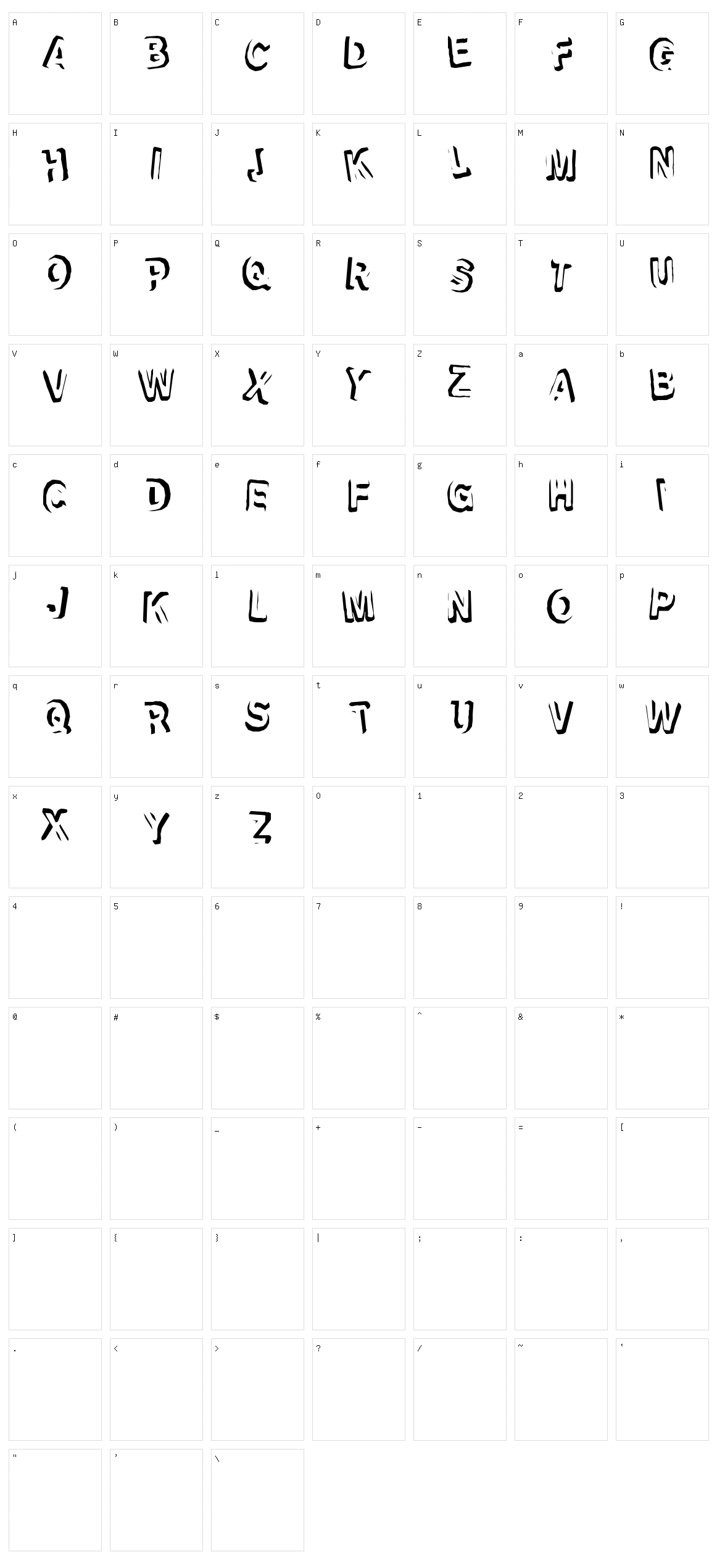
The free font Refrigeration is carefully designed by Vic Fieger, showcasing a thoughtful balance of creativity and usability and falls under the Distorted font style. When you download the ZIP file, it contains only 13.15 KB of font files, making it lightweight and quick to download. Please review the license details below to understand permitted usage and distribution rights. If license information is not available, we recommend using this font for personal projects only or contacting the author directly for commercial usage permissions.